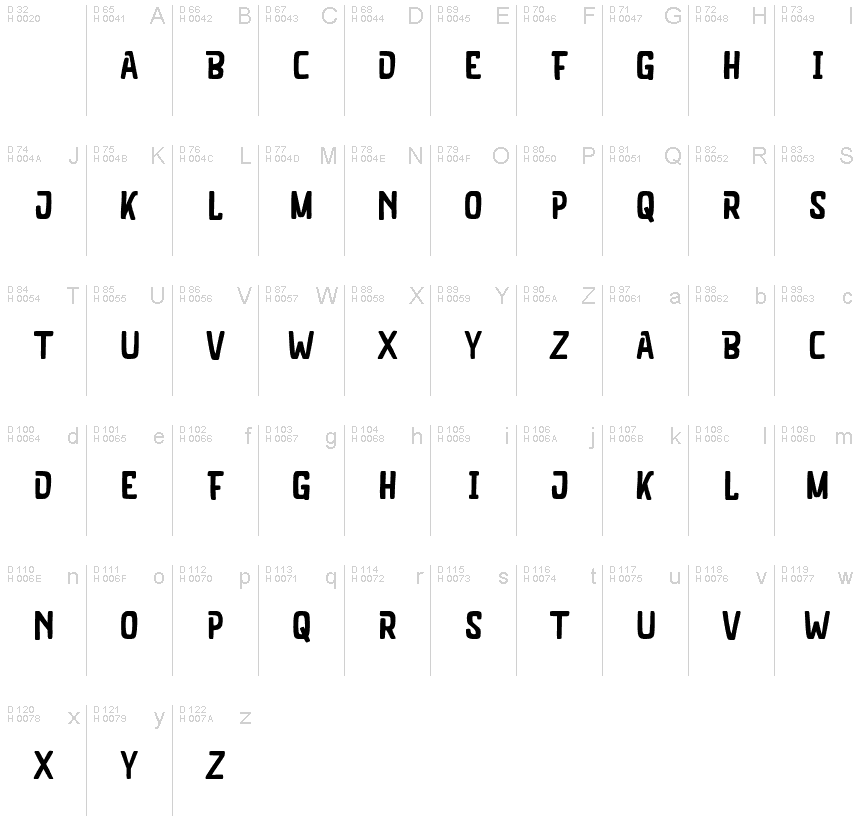
Vlakshore Free Regular
Vlakshore, a bold and semi-condensed display font designed by Maulana Creative, embraces a playful and whimsical cartoon style. This eye-catching typeface is perfect for various creative projects, such as children's books, comic strips, animated films, and video game designs. With its distinct personality and striking appearance, Vlakshore brings characters to life and adds a touch of excitement to any visual endeavor. Unleash your imagination with this font that effortlessly stands out from the crowd.